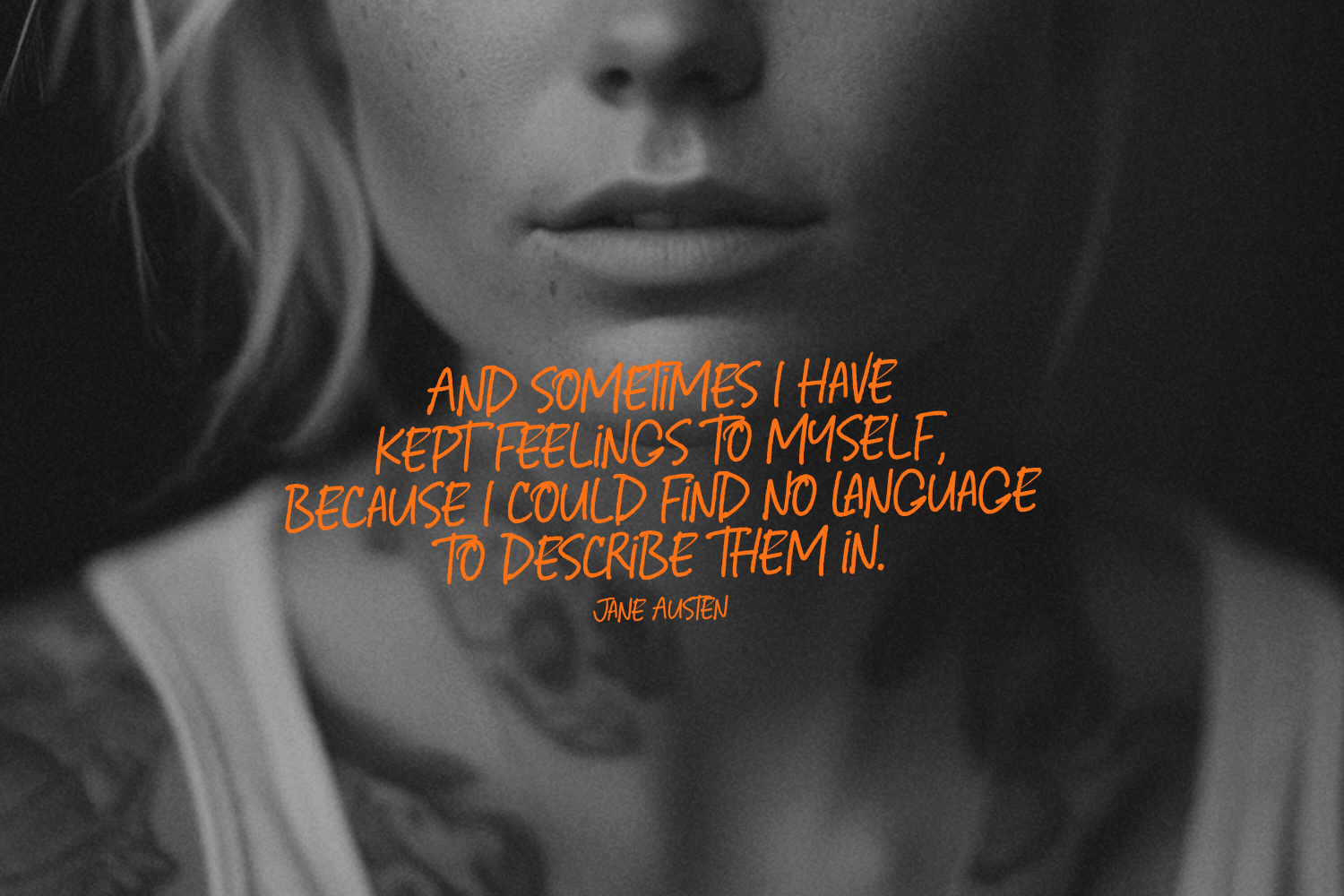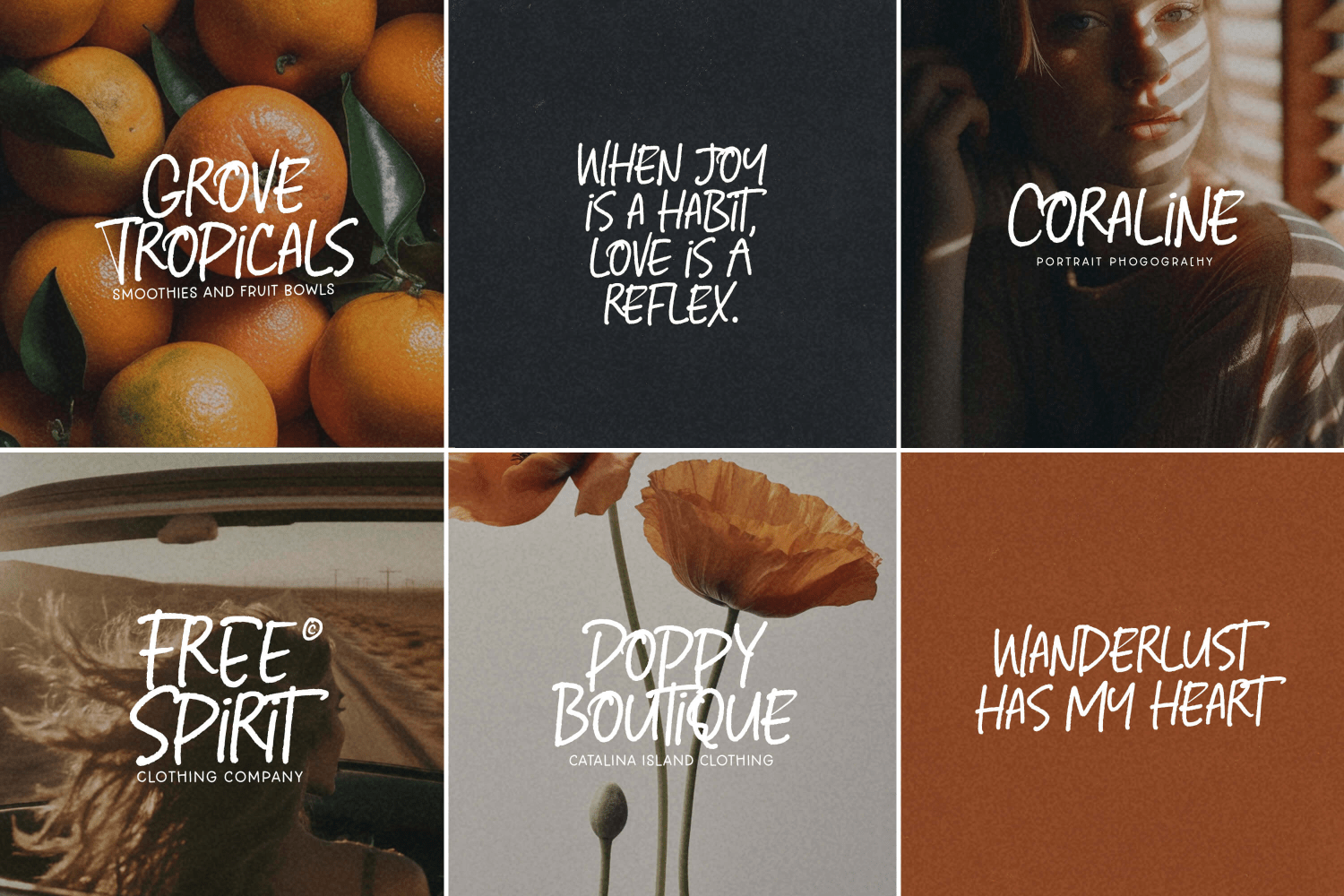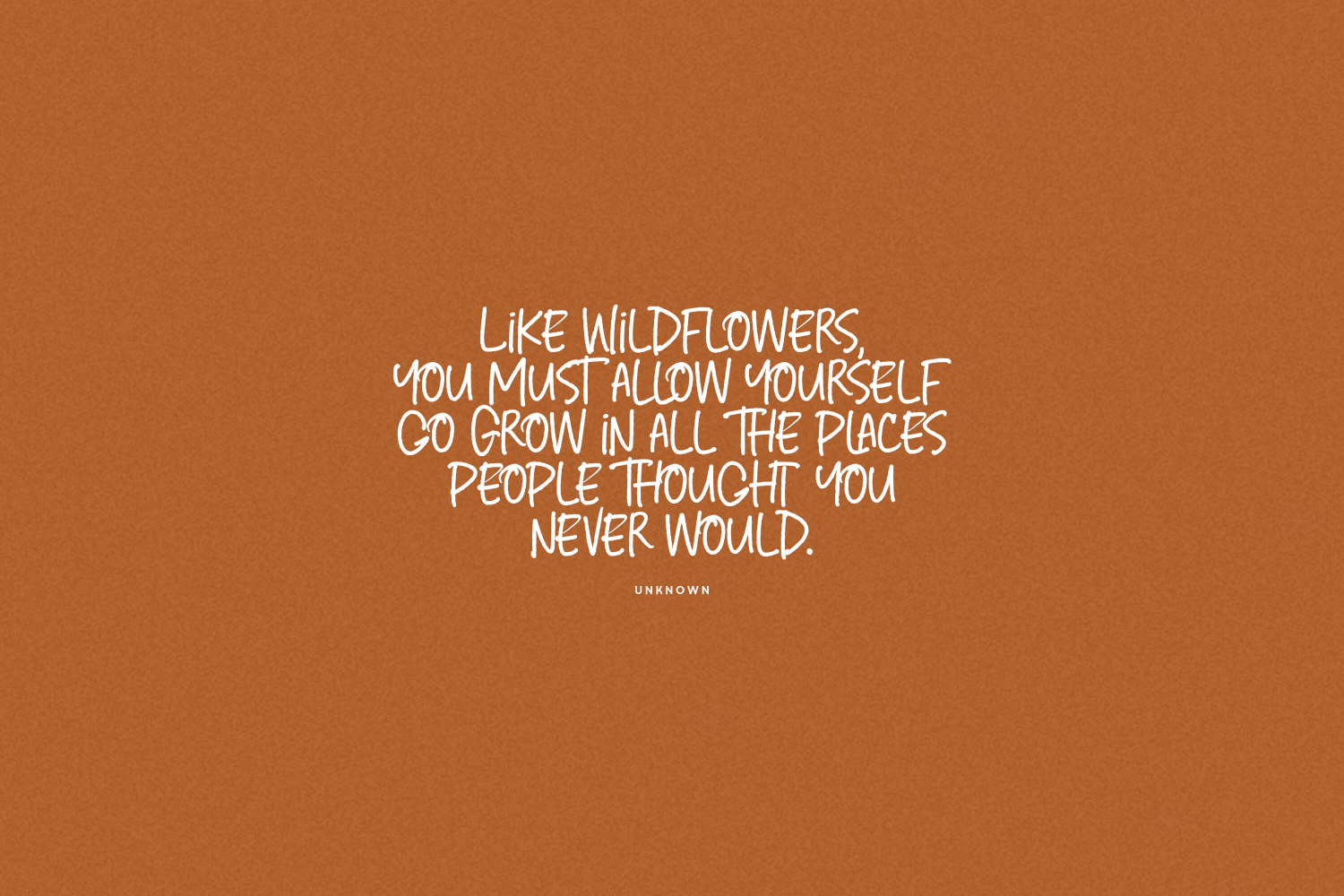
About Forever Darling
Introducing Forever Darling, a noteworthy typeface designed to look like real, organic handwriting! Use this pretty little font on packaging, editorials, subtext, quotes and loads more! This font means business, so let it standout!